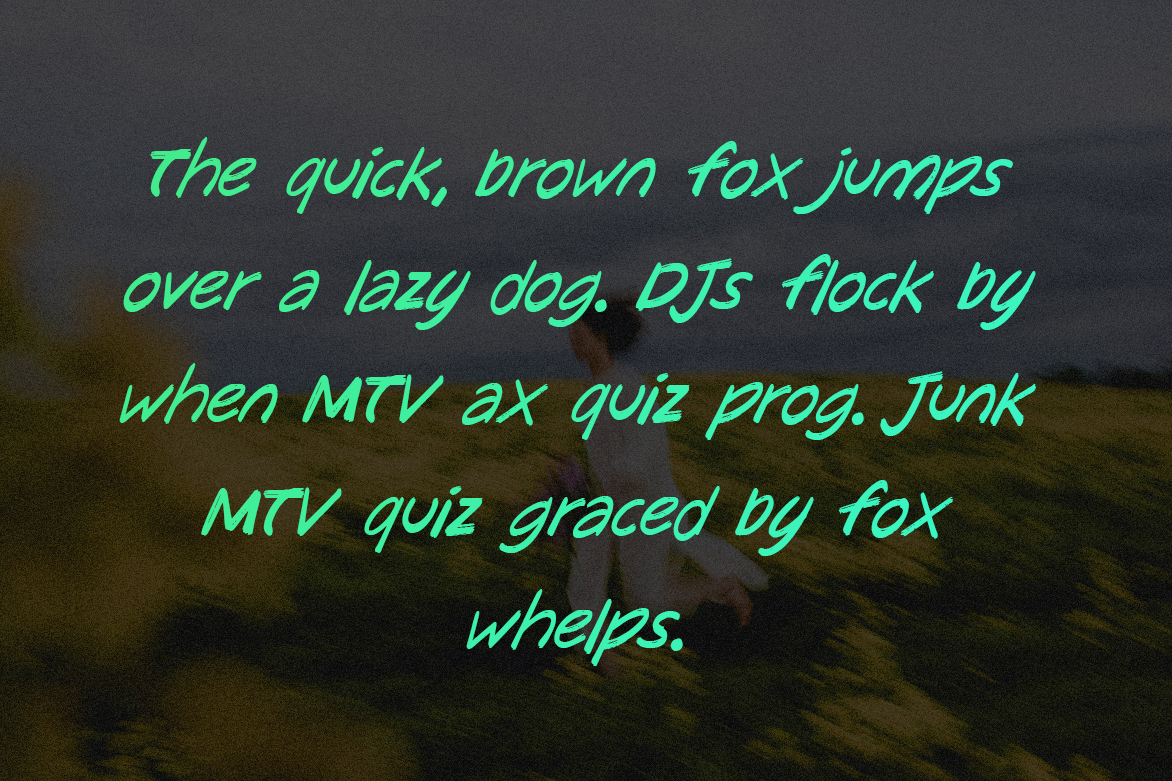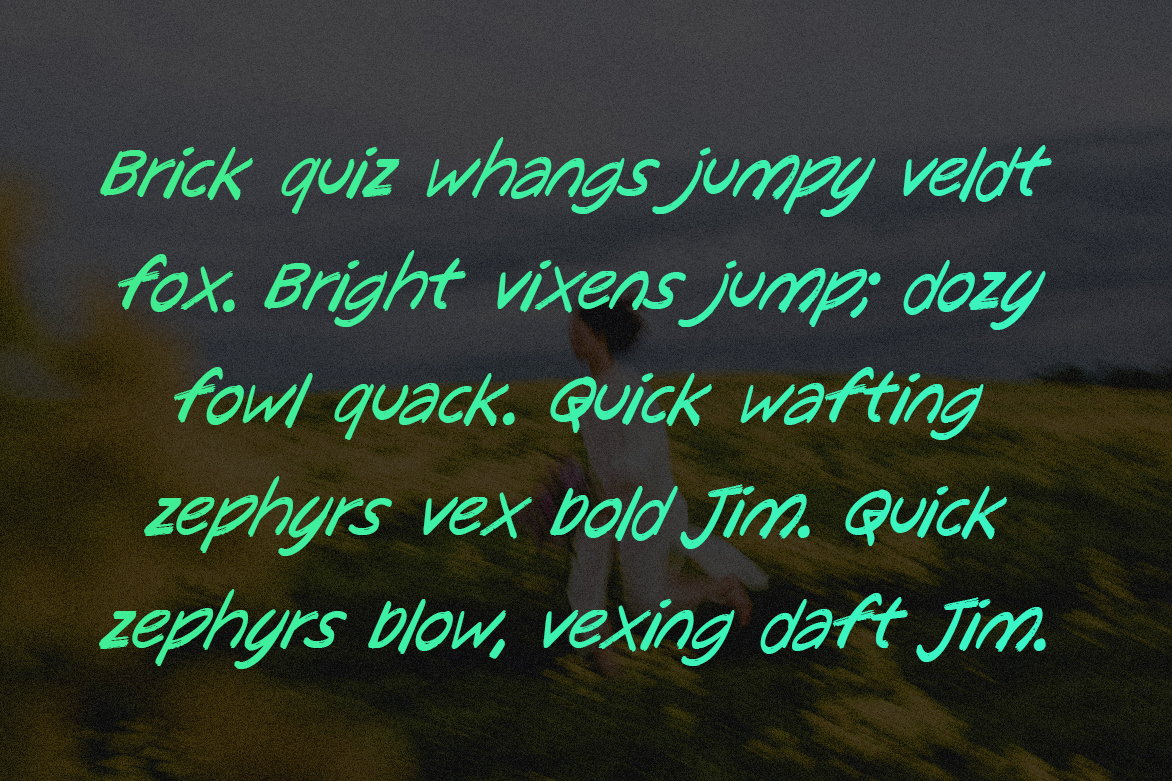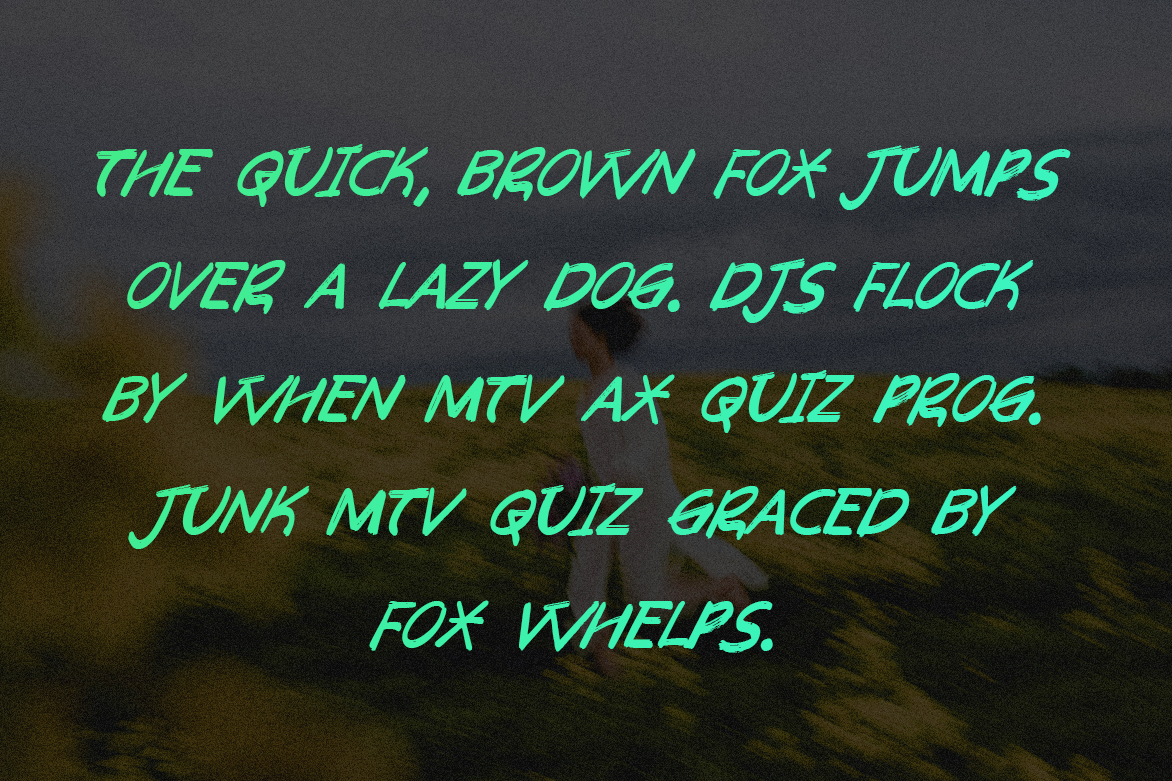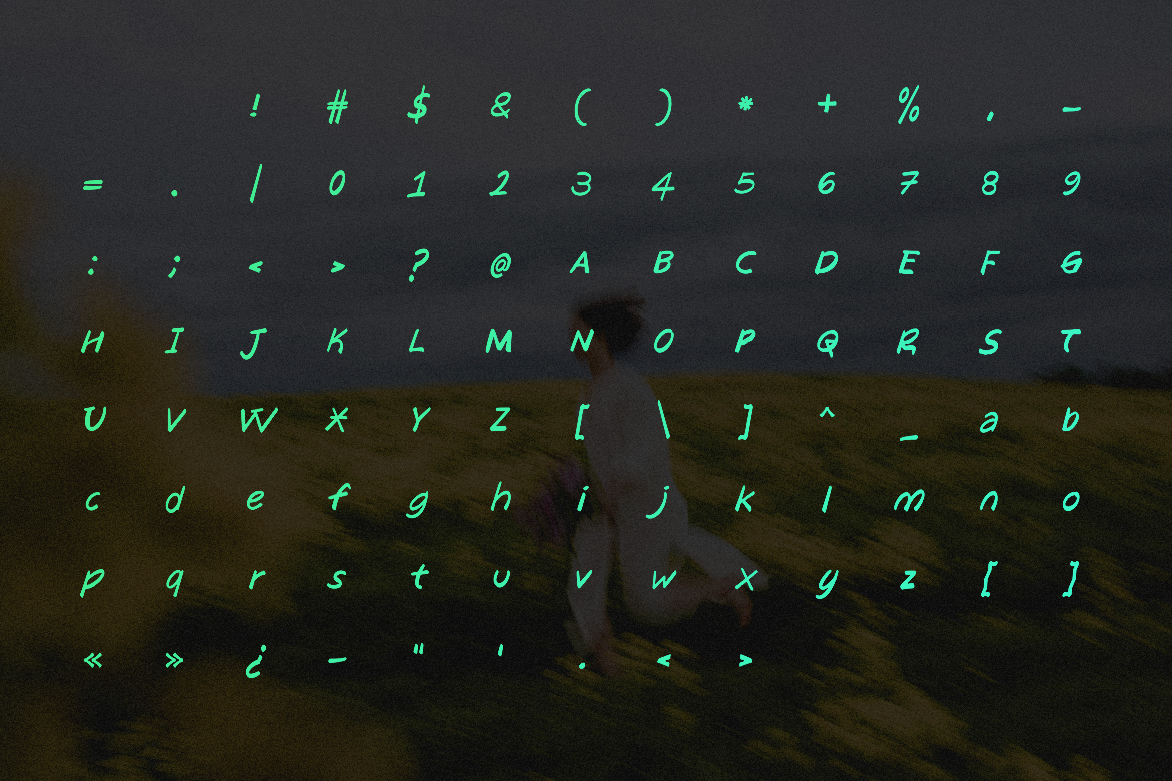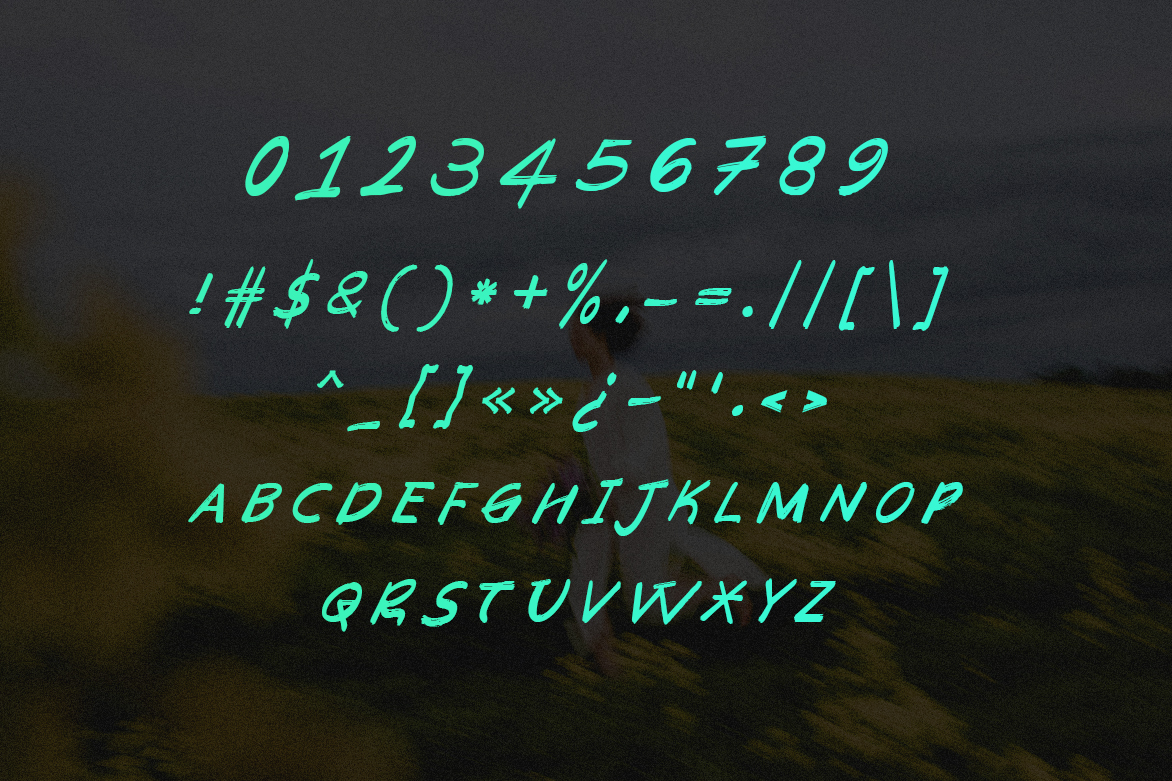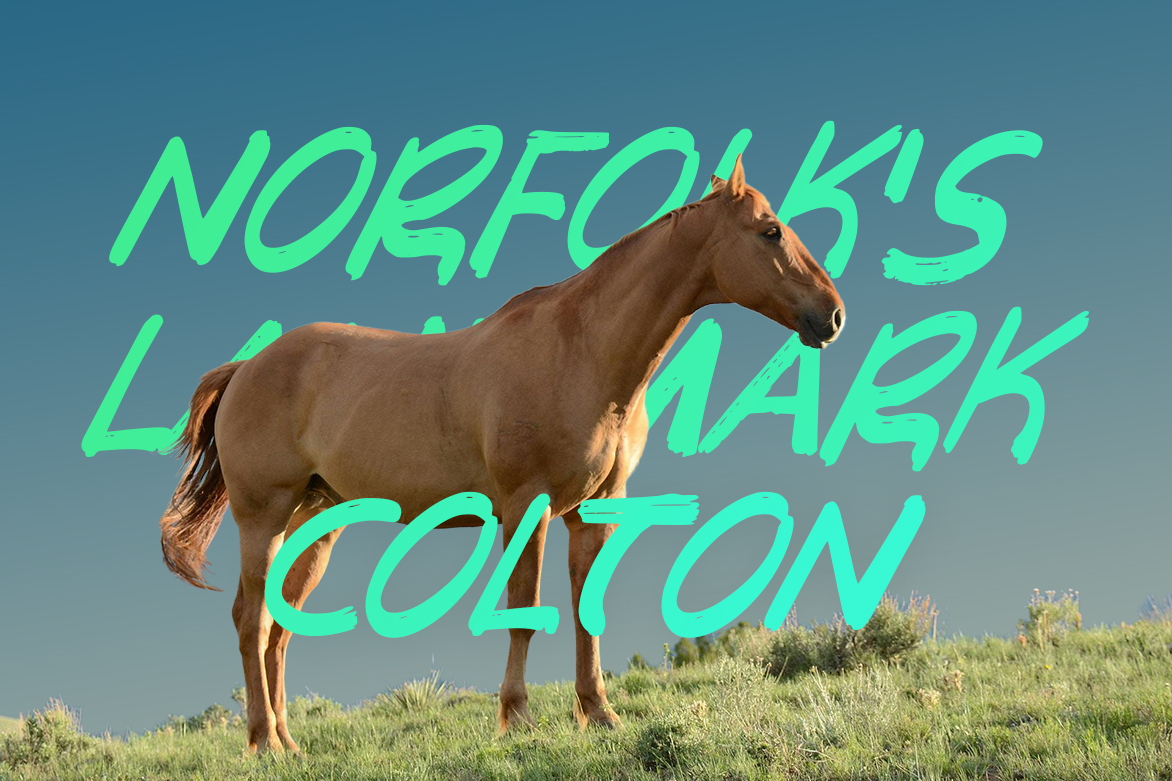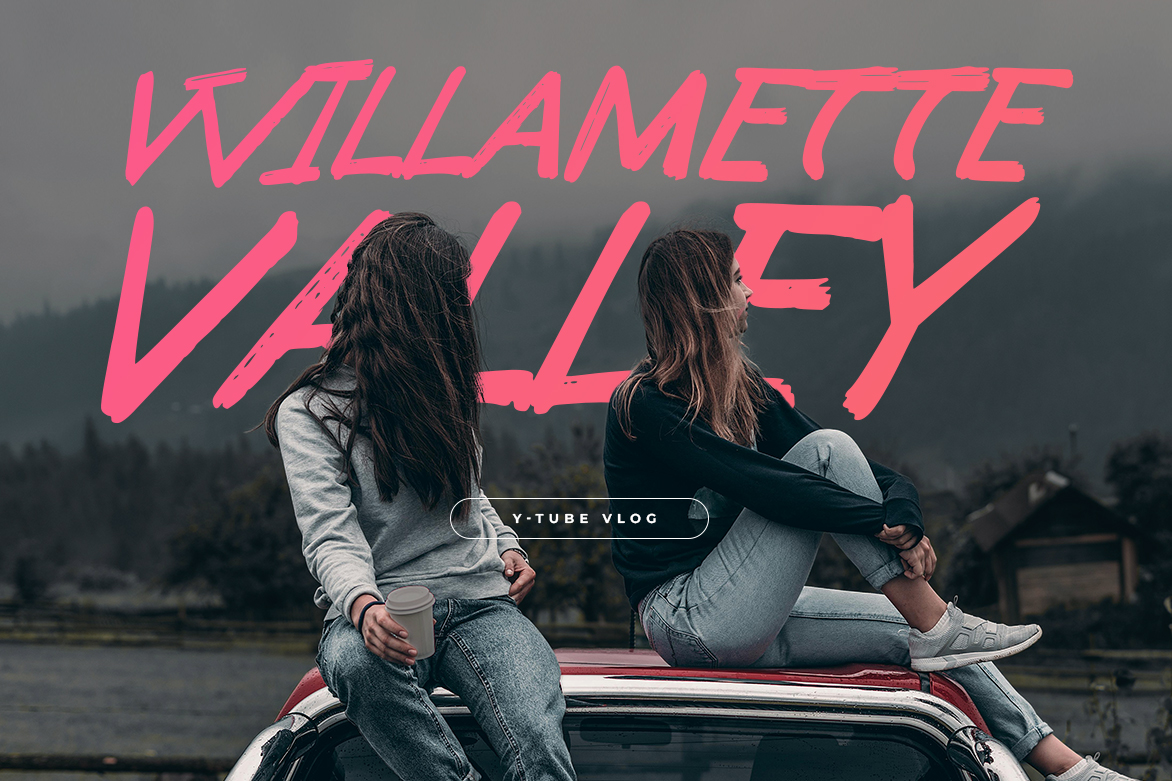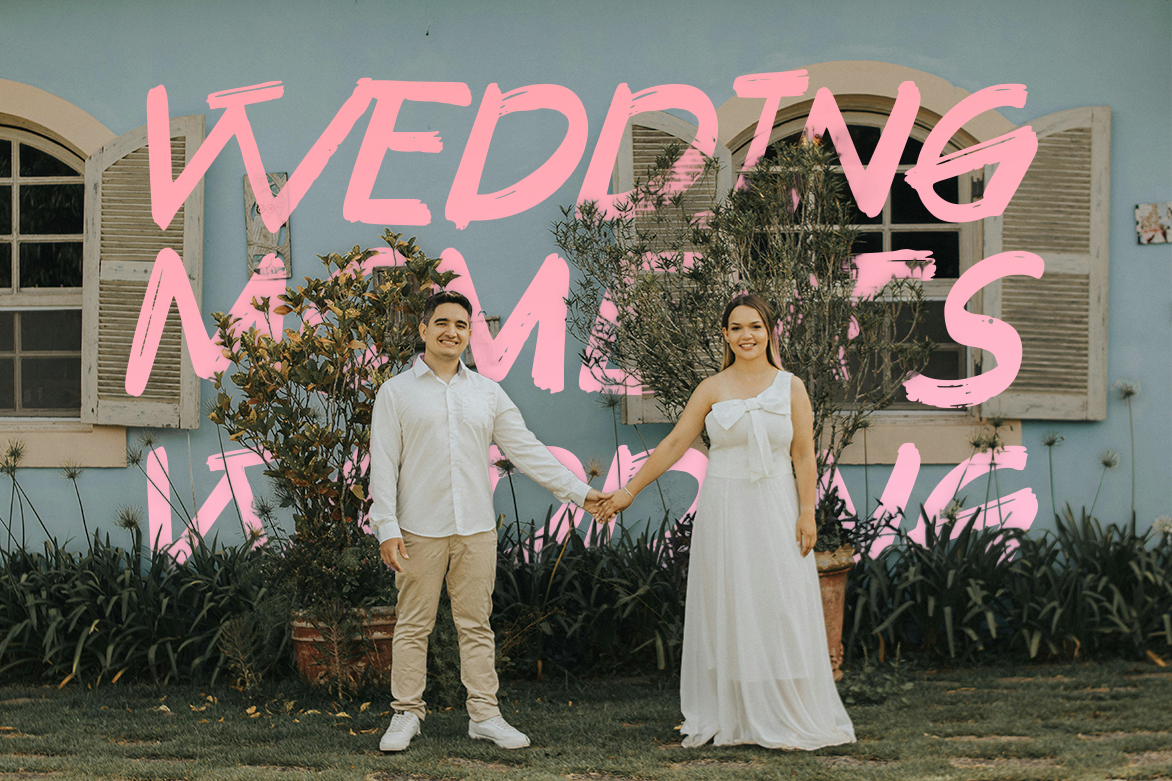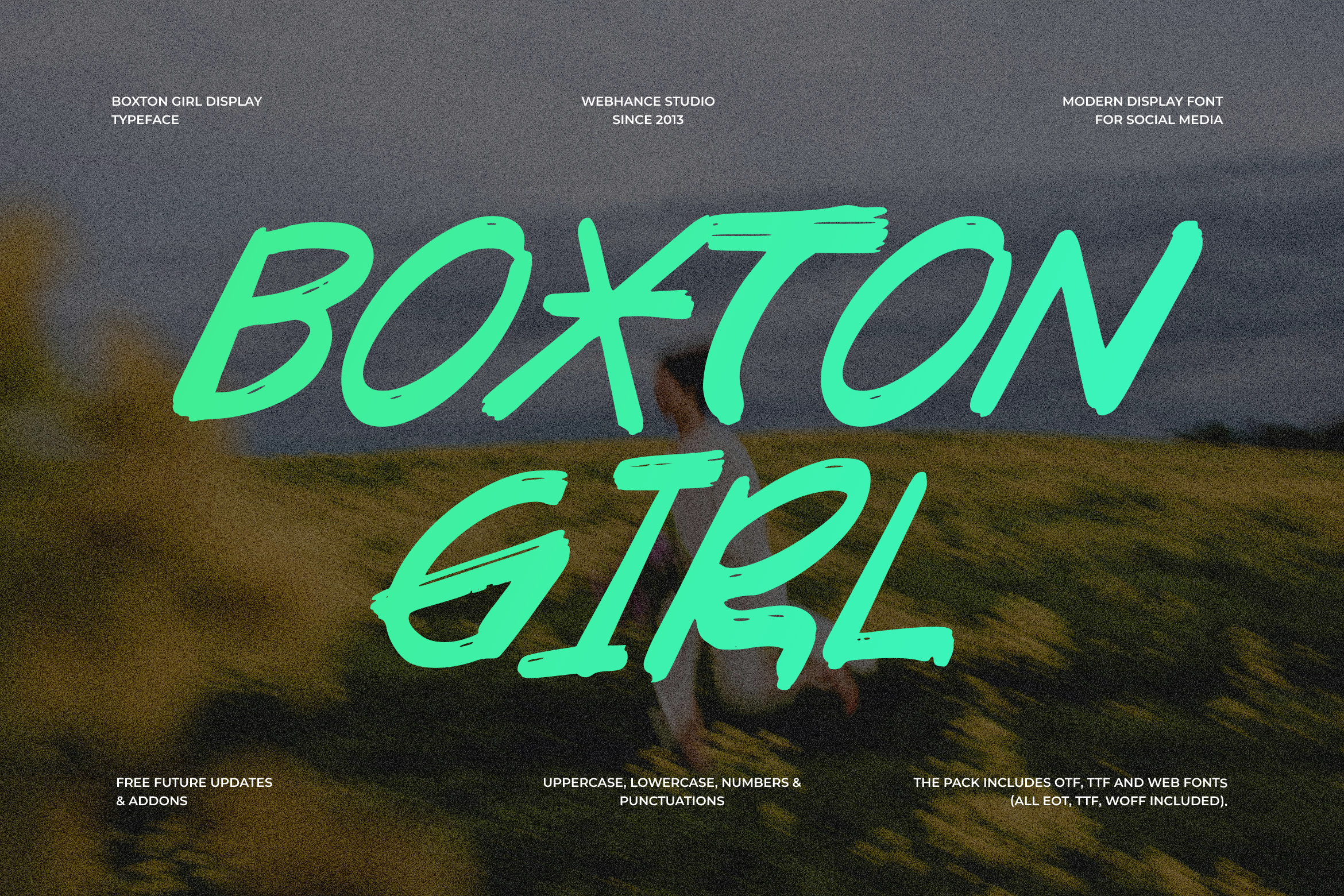
The Boxton Girl Handcrafted Display font is a bold and expressive typeface that brings a raw, organic flair to your designs. Merging vintage charm with modern versatility, this hand-drawn font features rugged strokes and an artistic flow, giving each letter a sense of authenticity and depth. Ideal for logos, branding, packaging, posters, and editorial layouts, Boxton Girl adds character and timeless appeal to any visual composition.
What sets the Boxton Girl Handcrafted Display font apart is its handcrafted essence. Every curve and line feels intentionally imperfect—full of personality and presence. It’s this handcrafted quality that ensures your designs leave a lasting impression, whether you’re working on print materials or digital campaigns.
Designed for creatives who seek originality, Boxton Girl is more than just a display font—it’s a design statement. Its vintage roots paired with a bold, contemporary structure allow it to adapt across multiple applications while maintaining a consistent visual impact. From standout brand identities to sophisticated packaging designs, this font is built to command attention without losing its artistic soul.
The Boxton Girl Handcrafted Display font is your go-to choice when your projects demand both emotion and presence. Add a human touch to your typography and create unforgettable designs with a font that celebrates craftsmanship and creativity.